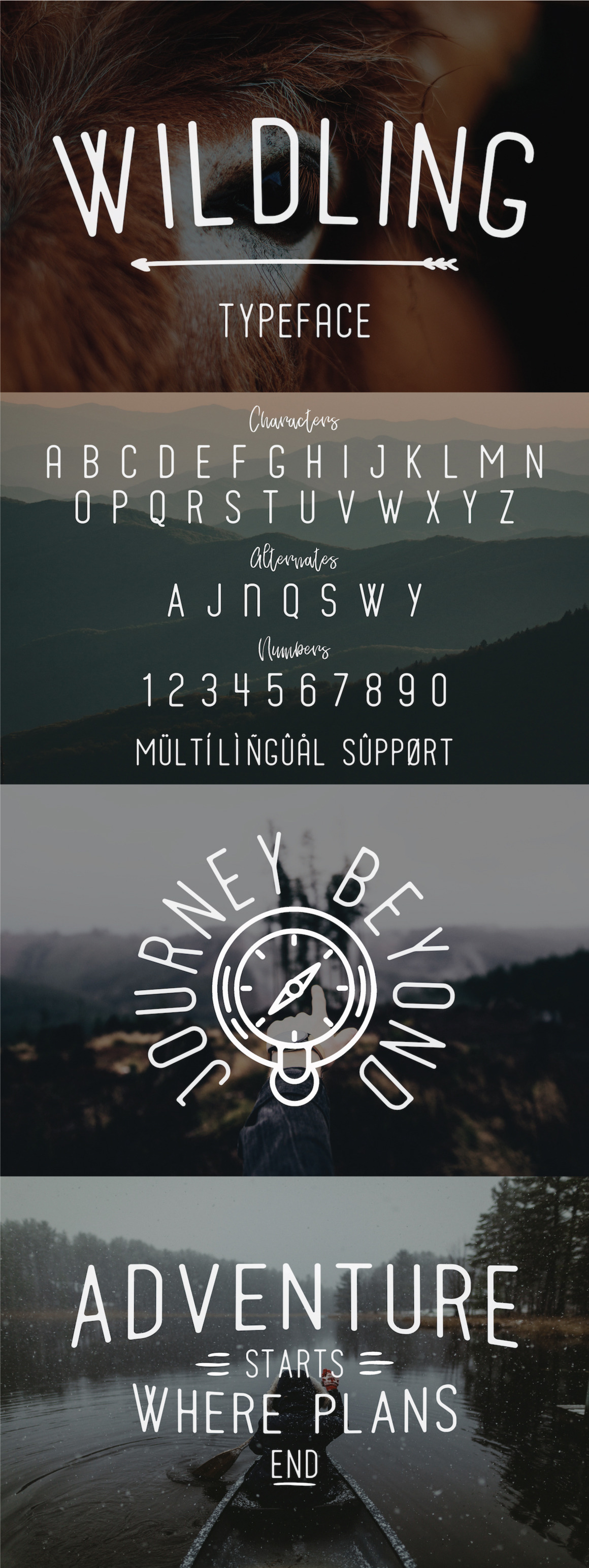
Wildling Typeface
Introducing Wildling Typeface
Wildling is a tall, versatile sans serif typeface created with quotes, badges, labels and type lockups in mind. It has excellent legibility at any size and also includes several alternate characters for creating unique designs.
Wildling also comes with many multilingual characters and is in .OTF & .WOFF formats.